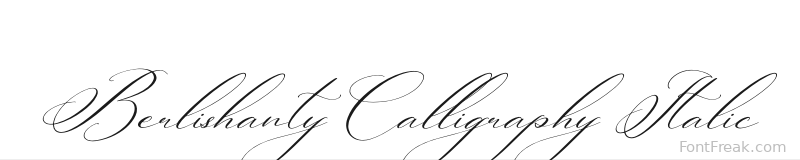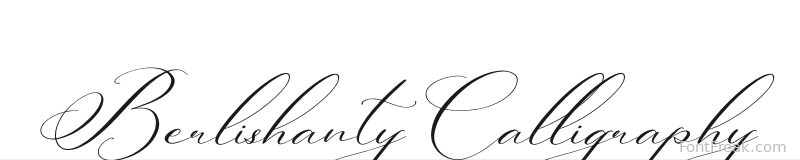
Berlishanty Calligraphy Italic
Berlishanty Calligraphy
About Berlishanty Calligraphy Italic
Berlishanty Calligraphy Italic, crafted by Perspectype Studio, is an exquisite script font that embodies the elegance and fluidity of traditional calligraphy. This font stands out with its graceful strokes and intricate letterforms, making it a perfect choice for various design applications. The italic style adds a dynamic touch, enhancing the sense of movement and sophistication. With a moderate stroke weight and a balanced contrast between thick and thin lines, Berlishanty Calligraphy Italic maintains legibility while exuding charm and artistry.
Visually, this font features beautifully looped ascenders and descenders, along with decorative swashes that embellish the letters. The open spacing between characters ensures clarity, allowing the font to shine in both large and small formats. This makes it particularly suitable for projects where elegance is paramount.
Berlishanty Calligraphy Italic is ideal for wedding invitations, where its romantic flair can enhance the overall aesthetic of the event. It also works beautifully on restaurant menus, lending a sophisticated touch to the dining experience. Graphic designers will find it useful for creating unique branding elements, while content creators can employ it in social media graphics to captivate their audience. Small business owners looking to add a personal touch to their marketing materials will also benefit from this font's distinct appeal.
In summary, Berlishanty Calligraphy Italic font free download offers a unique blend of elegance and versatility that sets it apart from other typefaces. Whether you are designing for a special occasion or seeking to elevate your brand's identity, this font provides a beautiful solution that captures attention and evokes emotion. Its artistic qualities make it a standout choice for anyone looking to add a touch of sophistication to their projects.